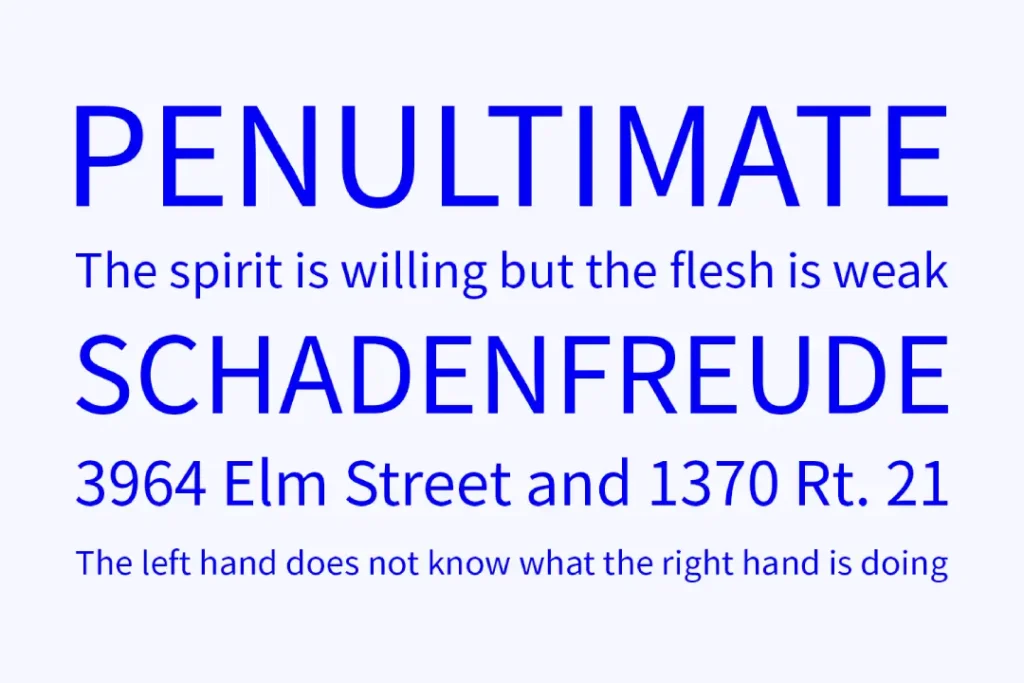
40 Best Web Fonts: Typography Guide for Digital Design
You encounter them daily, but you might not even notice. That’s kind of the point.
They’re like the perfect waiter at a fancy restaurant — always there when you need them, never drawing attention to themselves.
But here’s their secret: These fonts are pulling double duty. In the process, they’re shaping your online experience in ways you can’t even imagine. They’re whispering in your ear, telling you what’s essential, trustworthy, and exciting.
You think maybe you’re just reading words on a screen. You’re not. You’re having a visual language subtly crafted for you, which can make you feel, think and act in specific ways.
This is why picking the best web fonts isn’t only about making things pretty. It’s about communication. It’s about psychology. It’s about forging a connection with your reader beyond mere words.
In this digital age where attention is currency, a correct typeface may be all that stands between someone staying on your site or bouncing away faster than you can say “Comic Sans.”
So, are you ready to jump into the world of the best web fonts? Here are 40 typefaces that could take your digital design from forgettable to unforgettable.
- Choosing the right web font enhances communication and influences how readers perceive your brand.
- Web fonts have evolved from limited options to a vast array, improving digital design significantly.
- Effective typography balances aesthetics and functionality, crucial for retaining user attention online.
Why Web Fonts Matter
But before anything else, let me tell you why web fonts are essential.
They aren’t just good-looking; they’re the mouthpiece of your website.
The appropriate font can attract readers to your content, set the mood, and affect how people see your brand. It’s similar to selecting an outfit for a first date – you’d want to leave a good impression, wouldn’t you?
The Significance of Typography in Web Development
Typography isn’t only about readability (although that is a must).
It’s also about creating an atmosphere or telling stories, guiding users through different sections of your site.
With this in mind, it is crucial to pick a typeface which can either whisper loudly or scream softly. Such a design may be delicate but powerful at once.
Web Fonts’ History
Do you remember those days when we had limited options called ‘web-safe’ fonts?
Times New Roman, Arial and Verdana were cool kids on the block then.
Well now? We have access to thousands upon thousands of different typefaces!
That’s right – it’s almost like switching from black and white television sets to 4K ultra HD screens. The web font revolution has improved everything; everyone wins in such a situation.
The Sans-Serif Superstars
Let’s start with sans-serif fonts because of their clean and modern vibes. These types are versatile, reliable, and always fashionable.
1 – Roboto: The All-Purpose Typeface
Everyone’s favourite Google Font, Roboto, is a true chameleon. It has a mechanical skeleton but wears its letters with a smiley-open curve. It’s like that one friend who gets along with everyone at the party — headlines, body text, whatever you need – Roboto’s got your back.
2 – Open Sans: The People’s Font
If fonts won popularity contests (and sometimes they do), then Open Sans would be crowned king. Clean and neutral, it plays nicely with every design style out there. Think of it as the typographic equivalent of a little black dress – always appropriate, never overdressed.
3 – Lato: The Friendly Typefaces
Lato’s got serious but friendly written all over it — stable yet warm, too! Think of this font as a firm handshake with a twinkle in one’s eye. Plus, this font family comes loaded with different weights & styles, so you can fine-tune it to perfection.
4 – Montserrat: The Bold Beauty
Montserrat was inspired by old posters and signs from the traditional Buenos Aires neighbourhood called Montserrat circa 1908-1918s & it shows… This typeface is all about attitude – geometrically shaped letters give it presence; each character looks like somebody who knows how to make themselves heard without shouting too loud 😉 Use for headers that demand attention or pair with softer serifs to create some typographic tango!
5 – Source Sans Pro: The Hard Worker
Source Sans Pro is Adobe’s first open-source typeface designed for user interfaces and long-form reading on screens large or small – anywhere text needs to be clear at any size but still interesting without stealing focus away from other elements.
The Serif Sophisticates
Let’s get a little fancier with some serifs. These are the fonts that bring elegance and tradition into the digital realm. Think of them as the fine wines of typography – intricate, polished, and always tasteful.
6 – Merriweather: The Digital Bookworm
Merriweather is designed for on-screen reading, like cuddling up with a good book on your tablet. It has a large x-height, so it remains highly legible even in small sizes. Use it for long articles or as an elegant body text that won’t strain the eyes.
How do I know what fonts represent my brand?
Consider the personality and values of your brand. For instance, playful brands might go for rounded-friendly typefaces, while luxurious ones could opt for elegant serifs, etc. Look at competitors’ usage within the industry, too!
Can I use my fonts in an email?
It is possible to indicate web-safe fonts in HTML emails, but the support for this needs to be more comprehensive. So, it would be better to use typical web-safe fonts when designing your messages because they will display uniformly across various email clients.